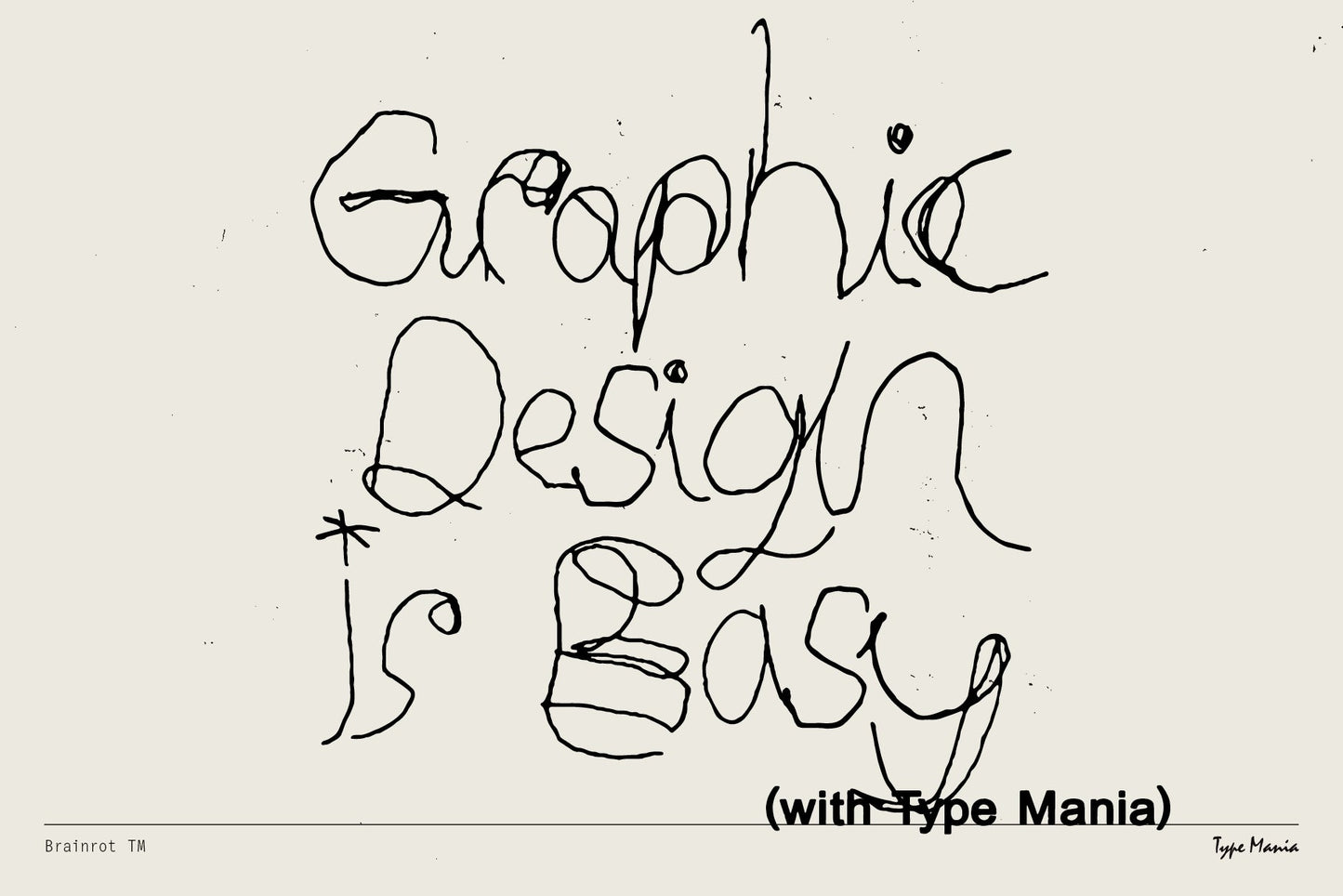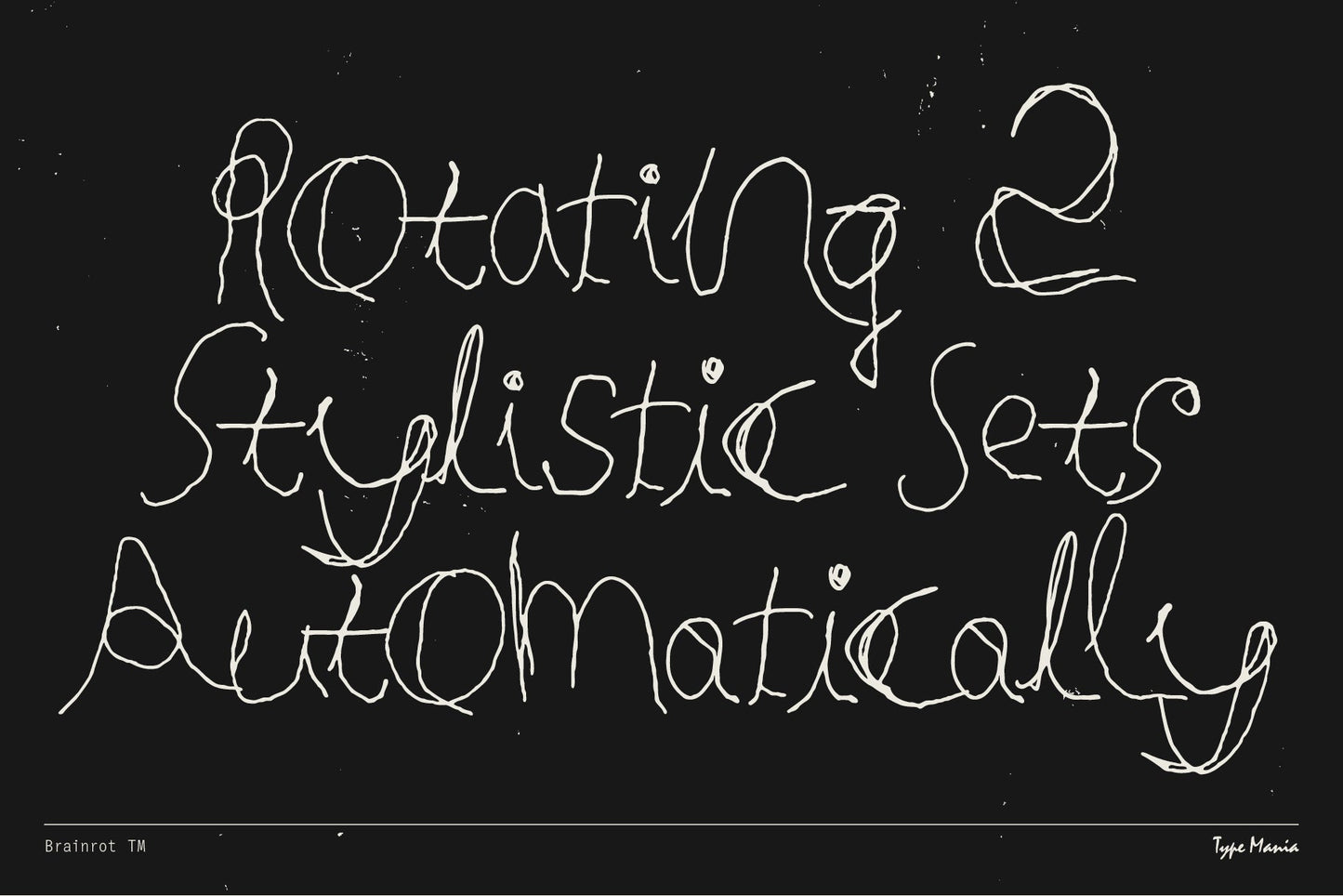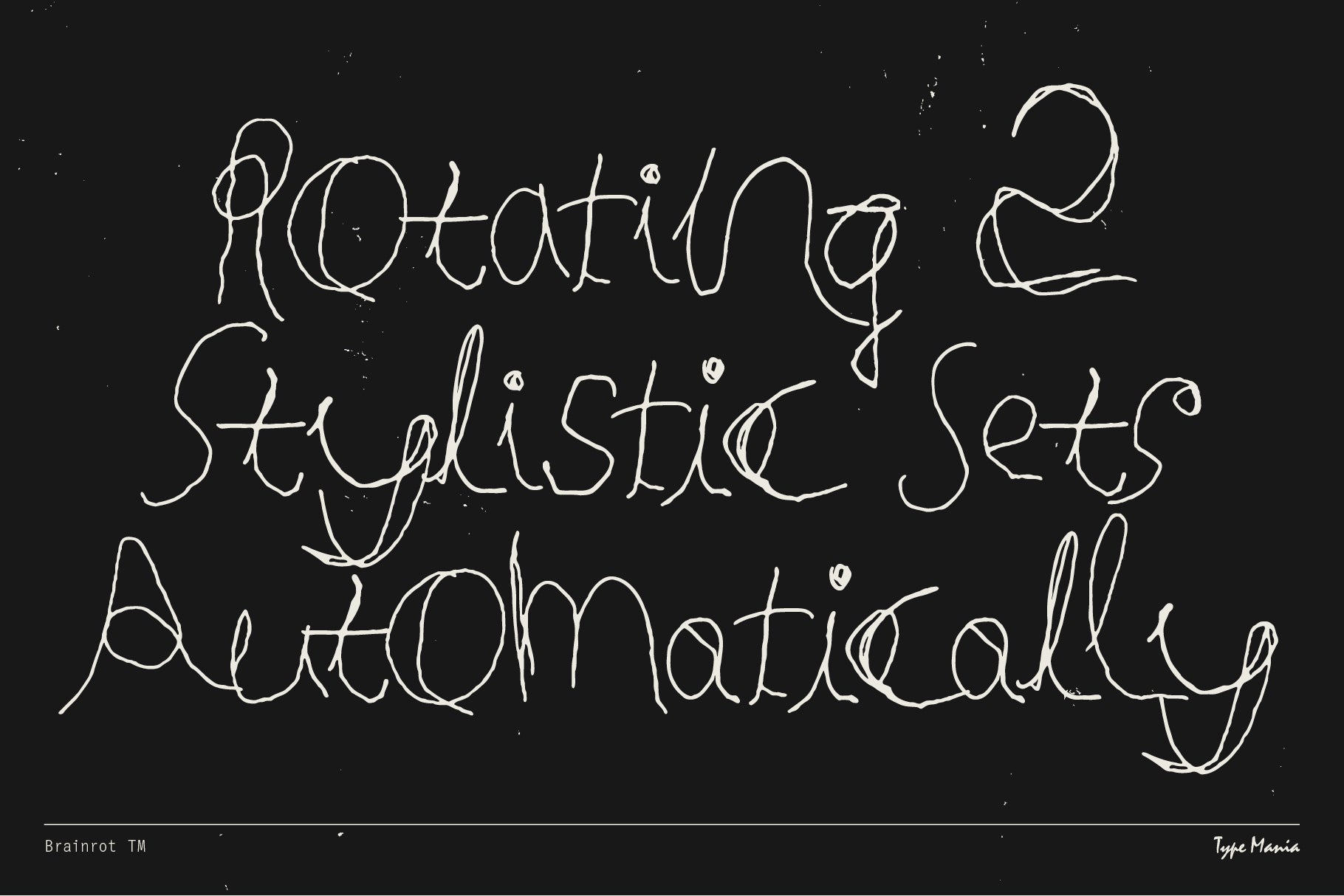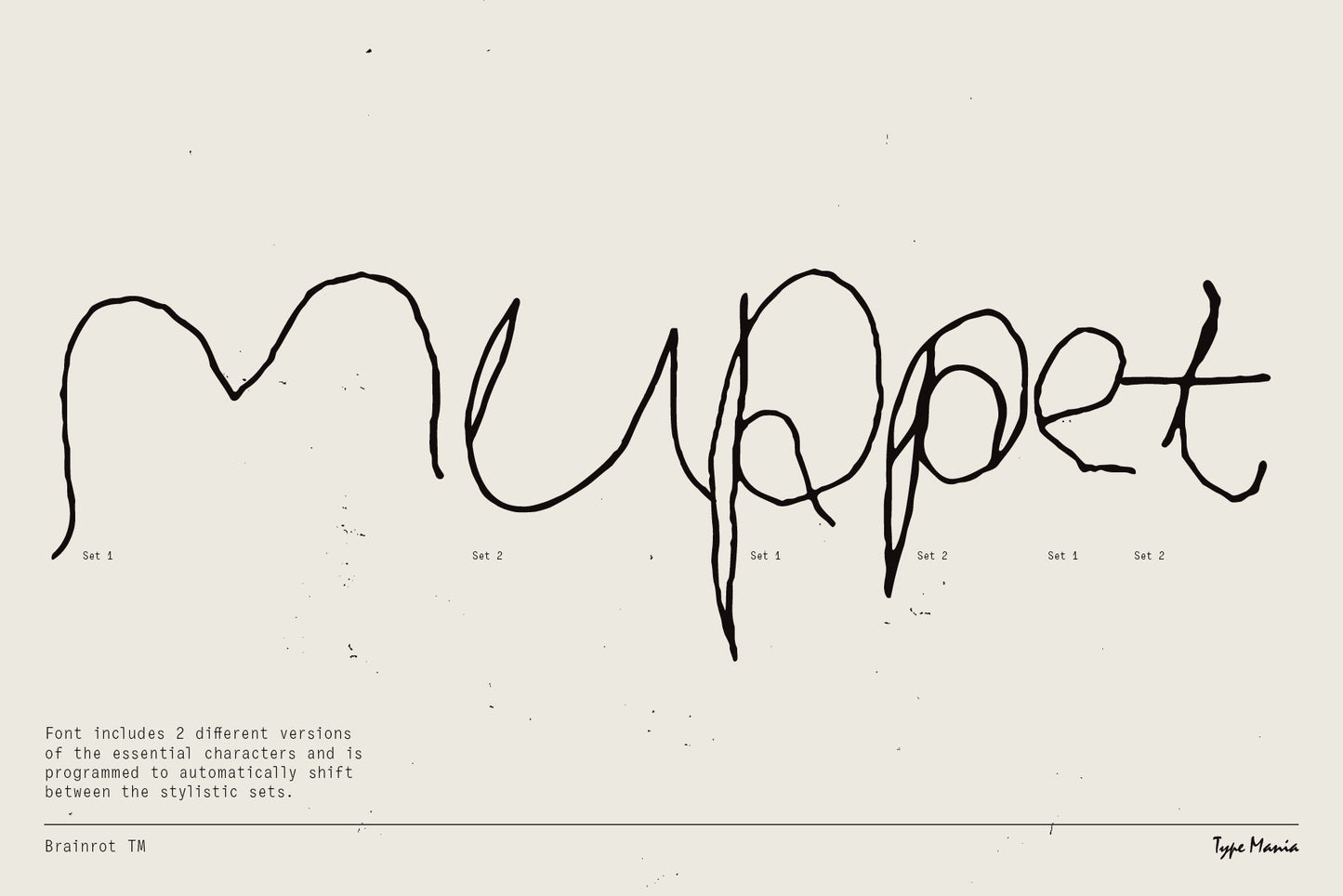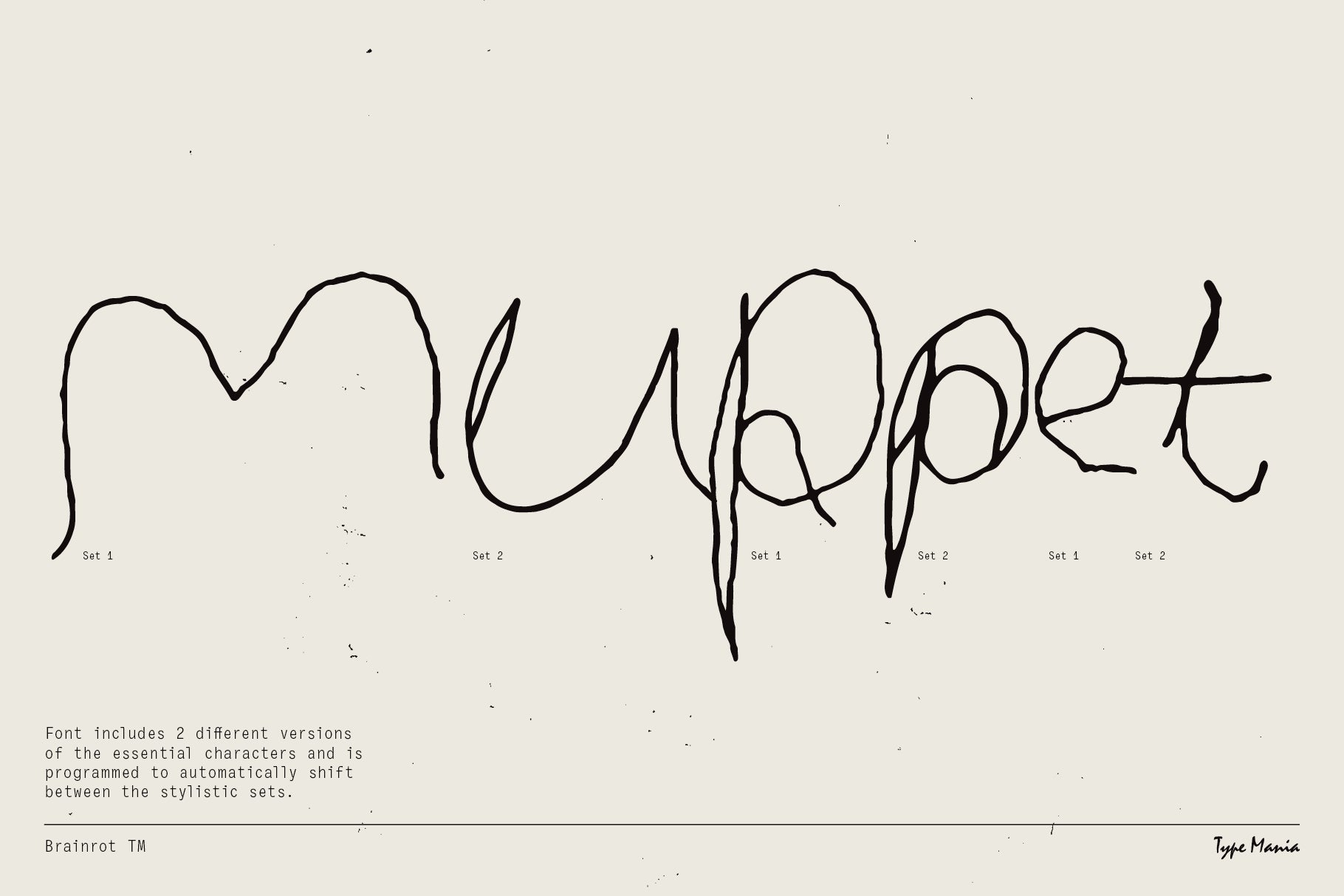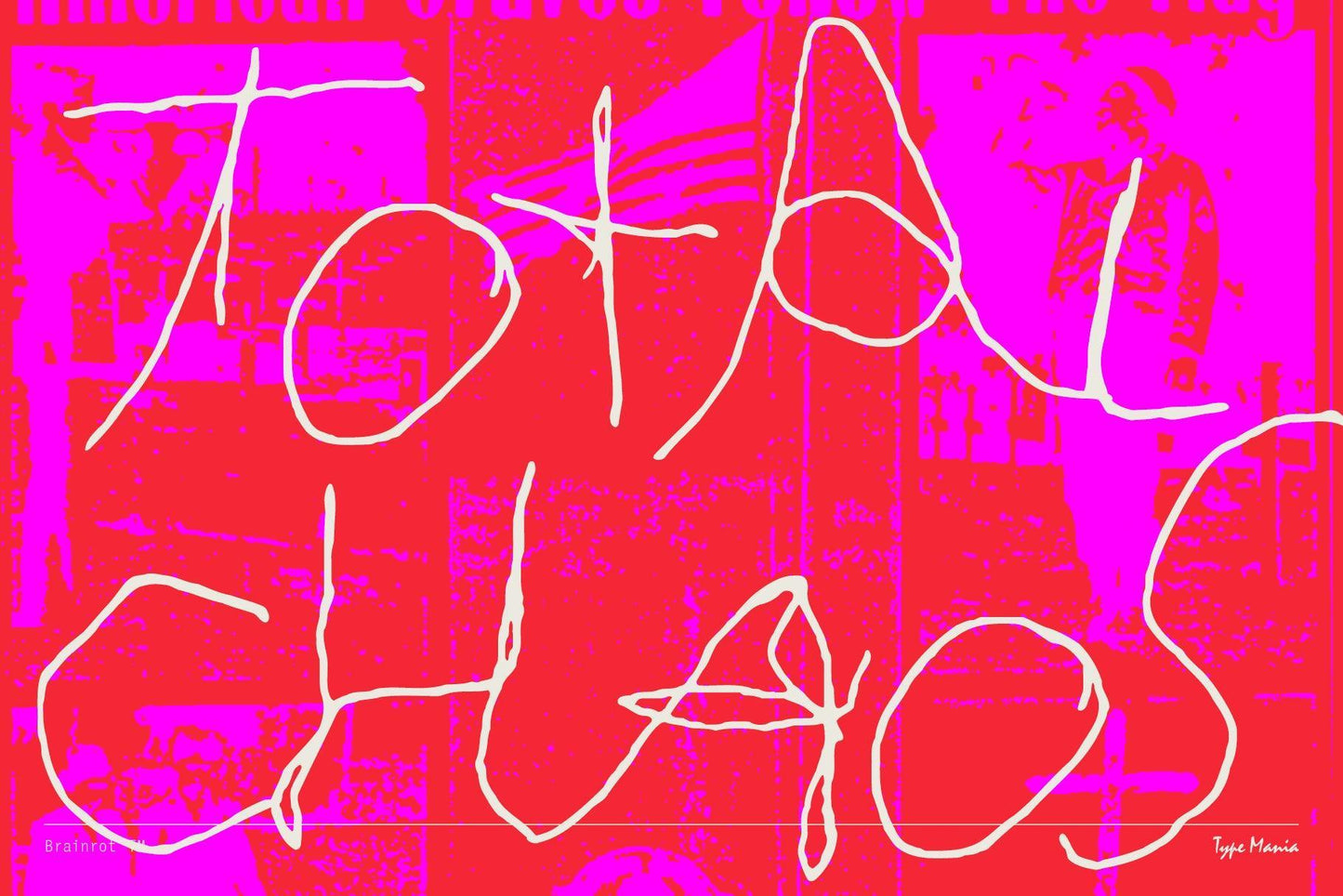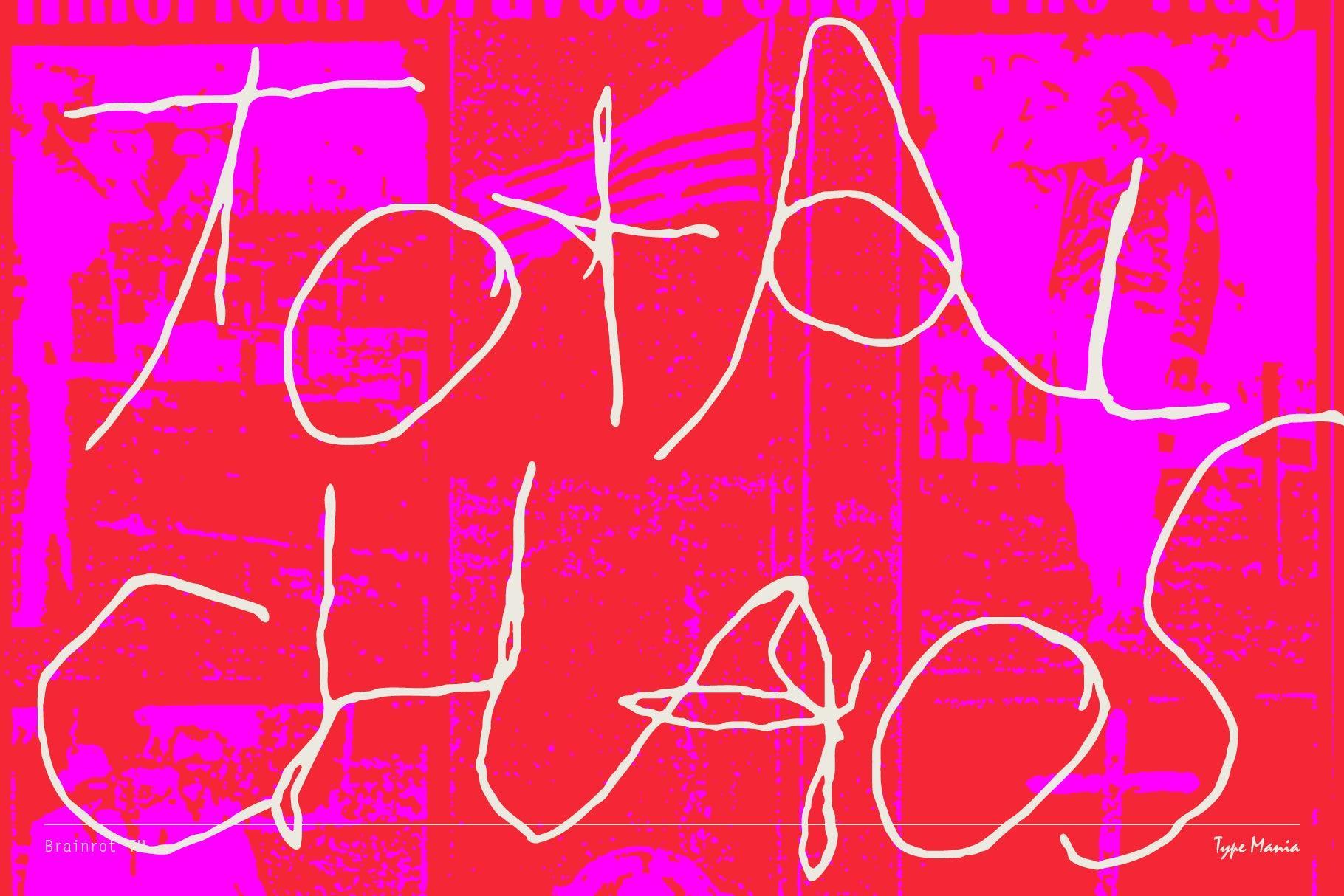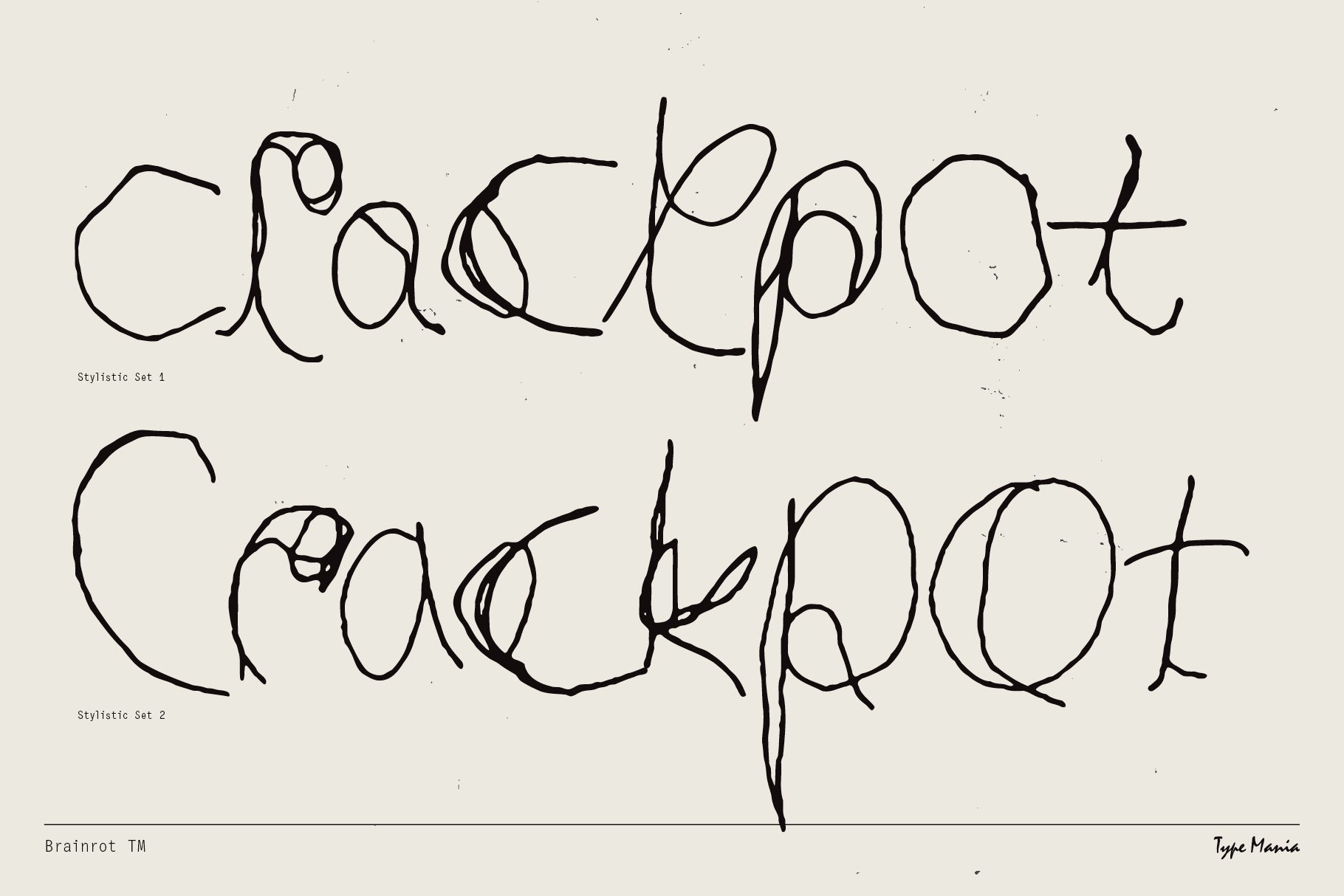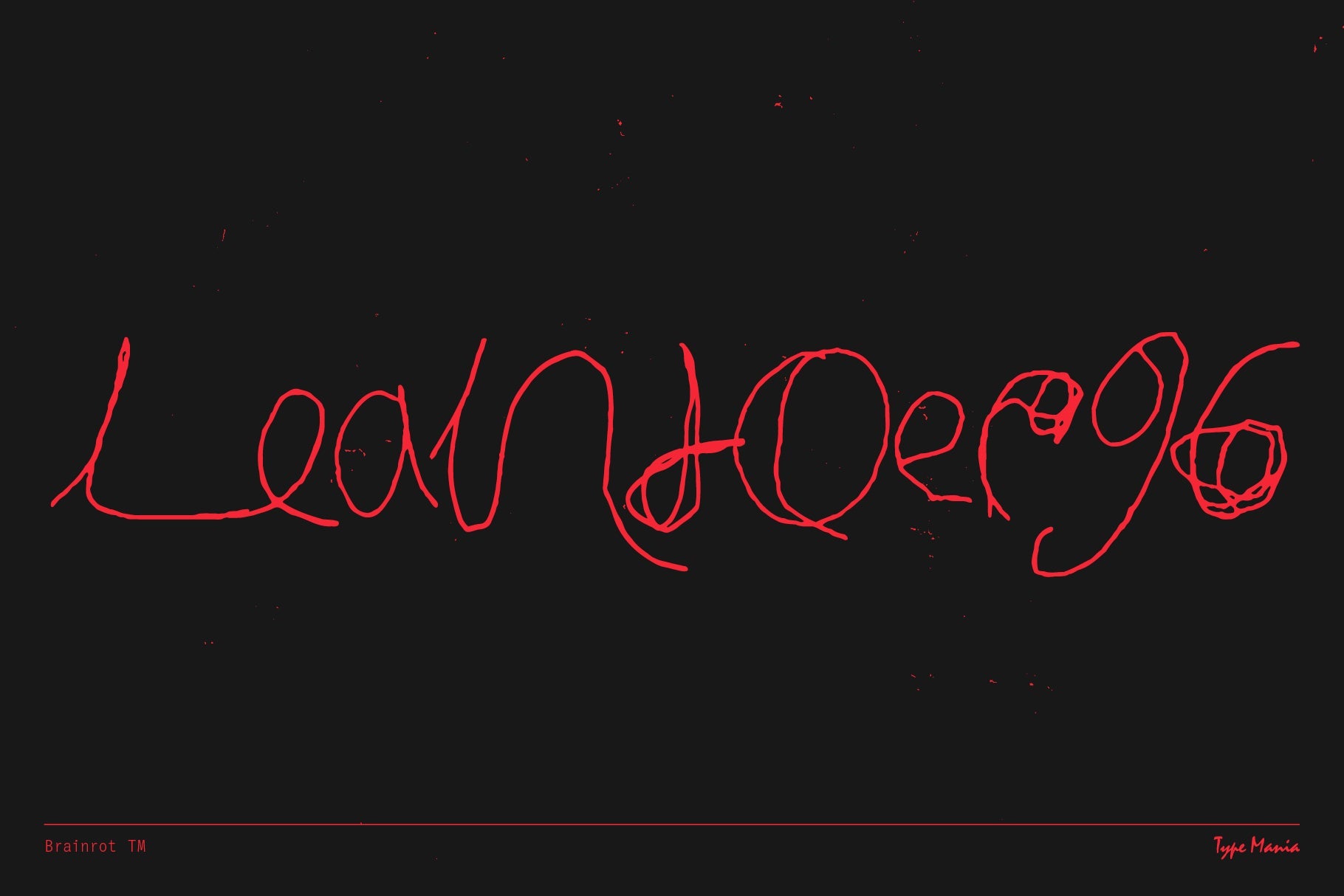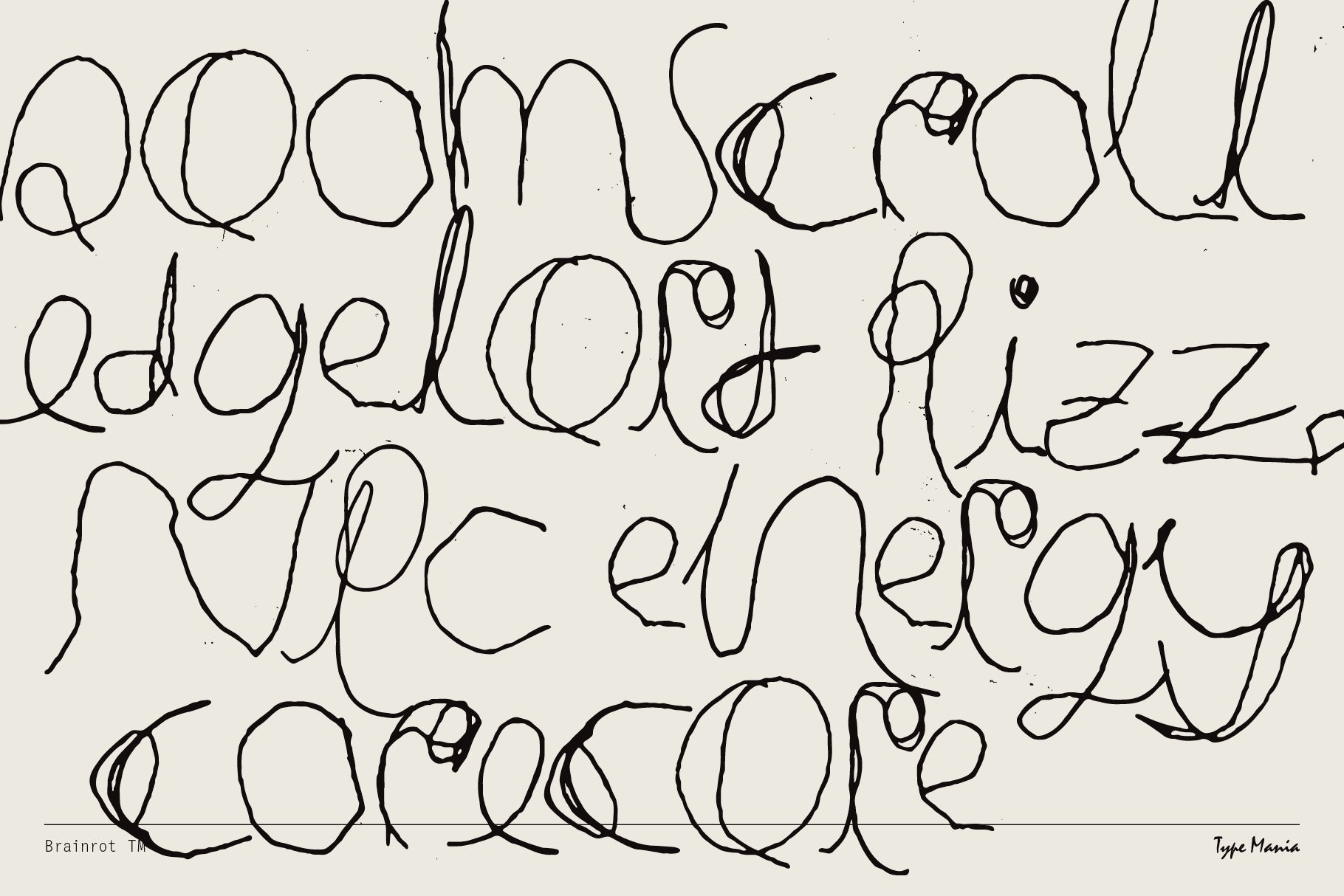
Brainrot TM
For bad moods and good designs 💆 Brainrot TM – the meltdown esthete's choice 💅💅
- 2 stylistic sets
- The font is programmed to automatically shift between the stylistic sets